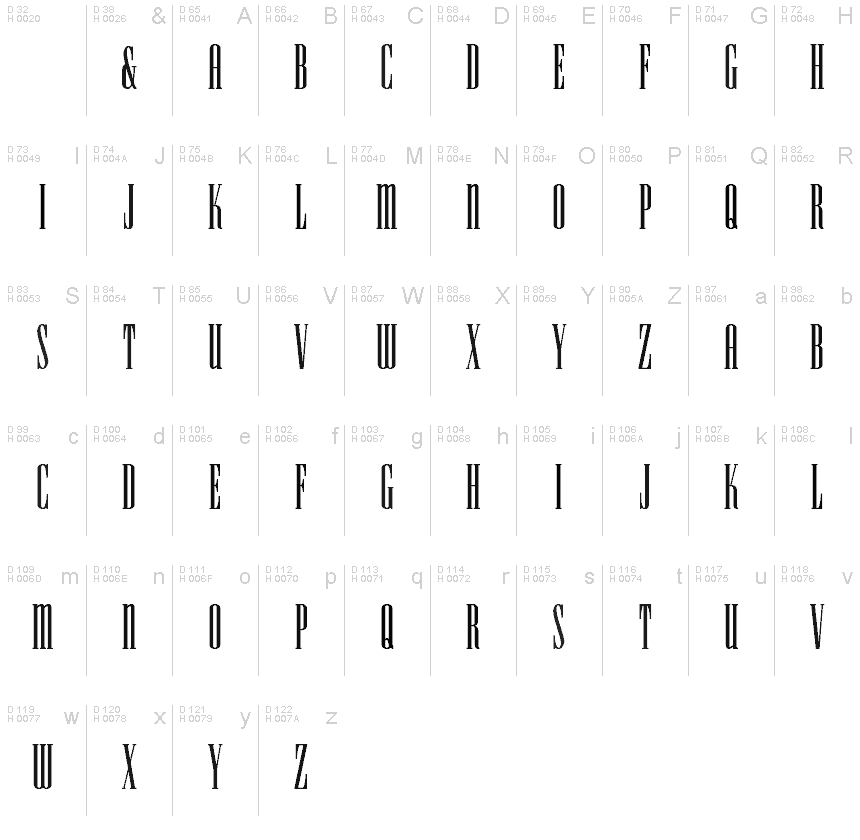
HFF Iconic Ionic Czcionka
HFF Iconic Ionic from Have Fun with Fonts is a free condensed Didone-style serif with an unusually tall, formal silhouette. Strong vertical strokes are cut by very fine crossbars and needle-thin serifs. The severe width and repeated stroke contrast give the caps the look of engraved fashion lettering or architectural inscriptions.
Its neoclassical air makes it a convincing choice for fashion branding, gallery posters, and fragrance packaging. The narrow letters also suit theatrical programs. In editorial design, it can turn a magazine masthead or section opener into a column-like graphic element, linking the typography to architecture, couture, and other subjects built around proportion and refinement.
Based on Moderna Condensed from Condensed Alphabets by Dan Solo.
HFF Iconic Ionic is based on Moderna, from page 61 of the "Condensed Alphabets: 100 Complete Fonts" by Dan X. Solo, first published by Dover Publications in 1986. Moderna is also featured on page 7 of "The Solotype Catalog of 4,147 Display Typefaces".